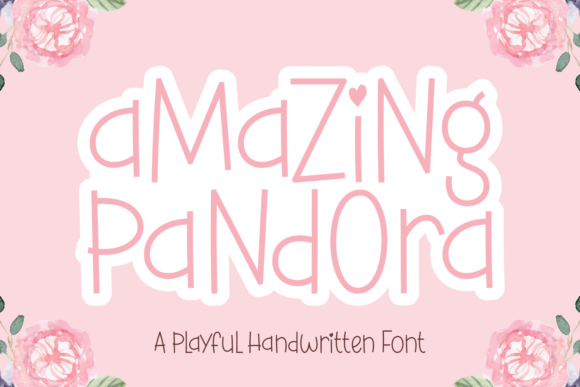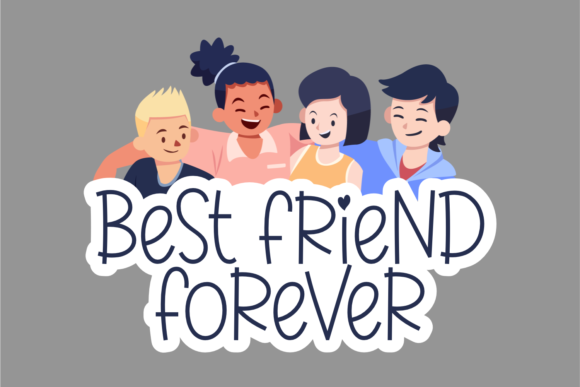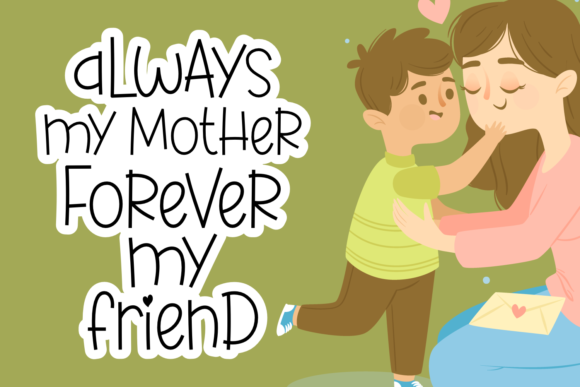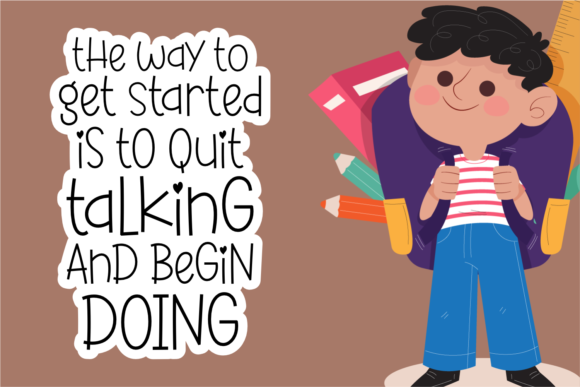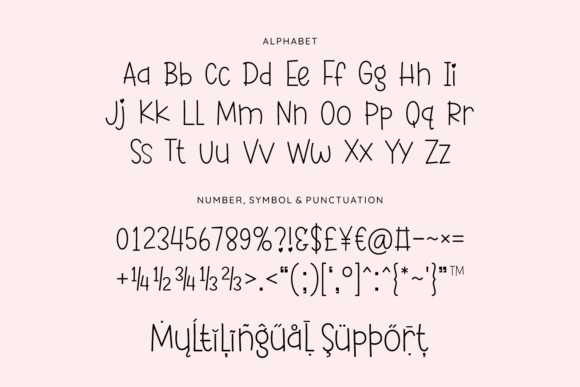
Amazing Pandora Font
“Amazing Pandora” is introduced as a friendly and playful handwritten font designed to bring a personal touch to informal projects or creations. The font is characterized by its friendly and playful nature, making it well-suited for a range of applications where a relaxed and approachable vibe is desired.
The use of terms like “friendly and playful” immediately sets the tone for the font’s visual qualities. These characteristics suggest that “Amazing Pandora” carries a warmth and lightheartedness, making it ideal for projects that aim to establish a personal connection with the audience.
The mention of being perfect for informal projects indicates that the font is adaptable to a casual and relaxed setting. It positions “Amazing Pandora” as a go-to choice for designs that prioritize a laid-back and approachable atmosphere.
The encouragement to have fun with this quirky typeface and explore its endless possibilities suggests that “Amazing Pandora” is not just a font but a creative tool. Its quirks and playful elements provide room for experimentation, allowing designers to infuse their projects with a sense of creativity and spontaneity.
In summary, “Amazing Pandora” is presented as a friendly and playful handwritten font suitable for informal projects. Its adaptability to casual settings and the invitation to explore its endless possibilities position it as a versatile and creative choice for designers looking to add a personal touch to their work.